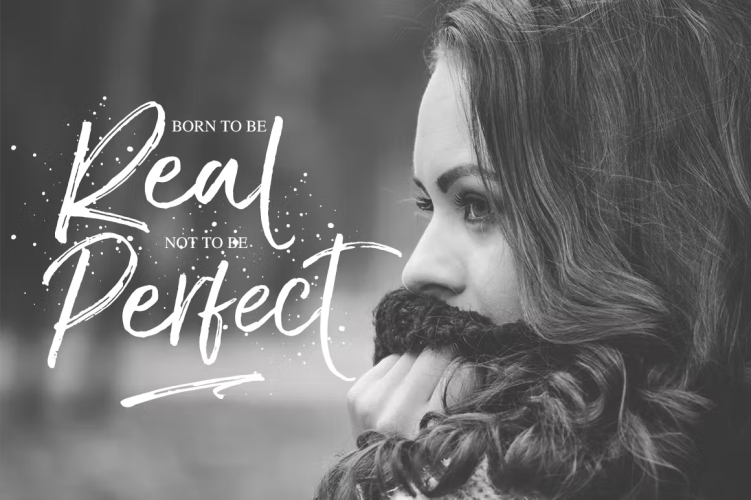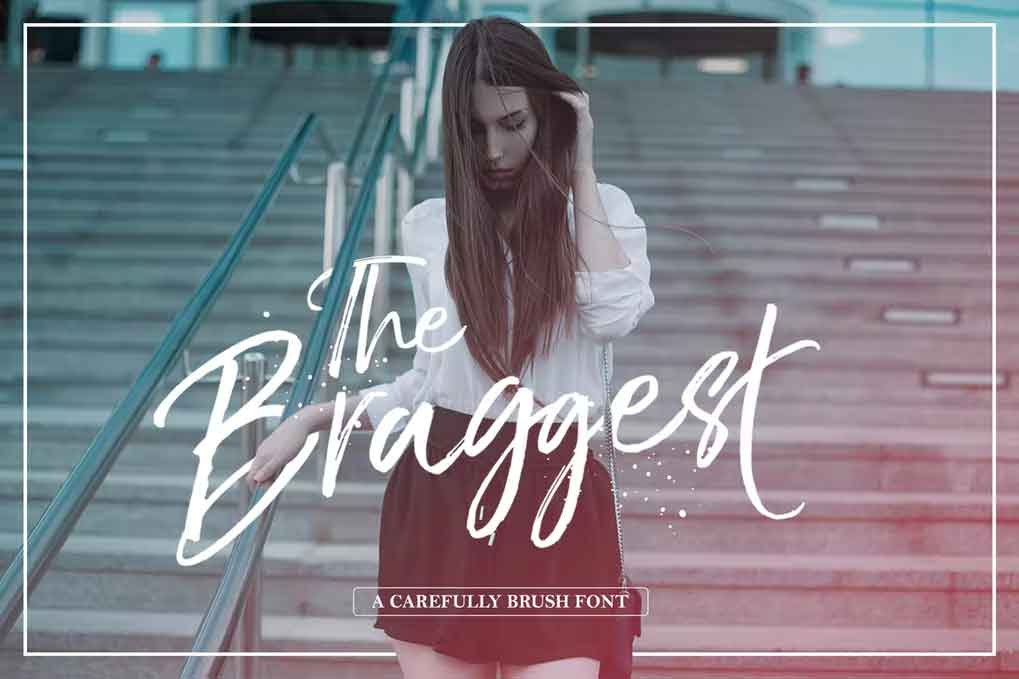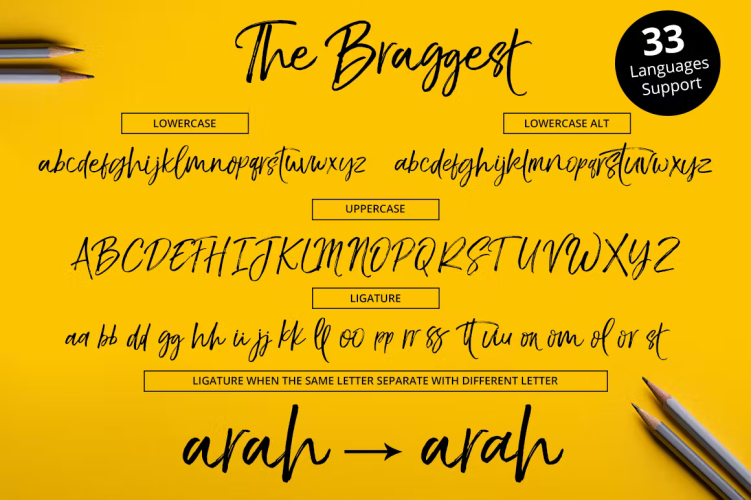
The Braggest Font
The Braggest a new brush font carefully on making sketch and scanning until we get the best result, and so was born a new crazy font and make it a very personal handwriting for every project. The Braggest includes two lowercase characters, and very likely ligature thats allow you to make a personal handwriting especially for branding project
Where The Braggest Font works best
The Braggest Font brings a personal, handwritten warmth to invitations, menus and place cards.
Craft brands — coffee, cosmetics, bakery — use scripts like The Braggest Font for signature-style logos and labels.
Pair The Braggest Font with a plain sans for quotes, stories and Pinterest pins that feel handmade.
What is The Braggest Font good for?
The Braggest Font is a Script And Handwritten typeface tagged Braggest, Branding, Brush, Handwritten. It works well for headlines, logos, posters, social media graphics and branding projects that need a distinctive script and handwritten look.